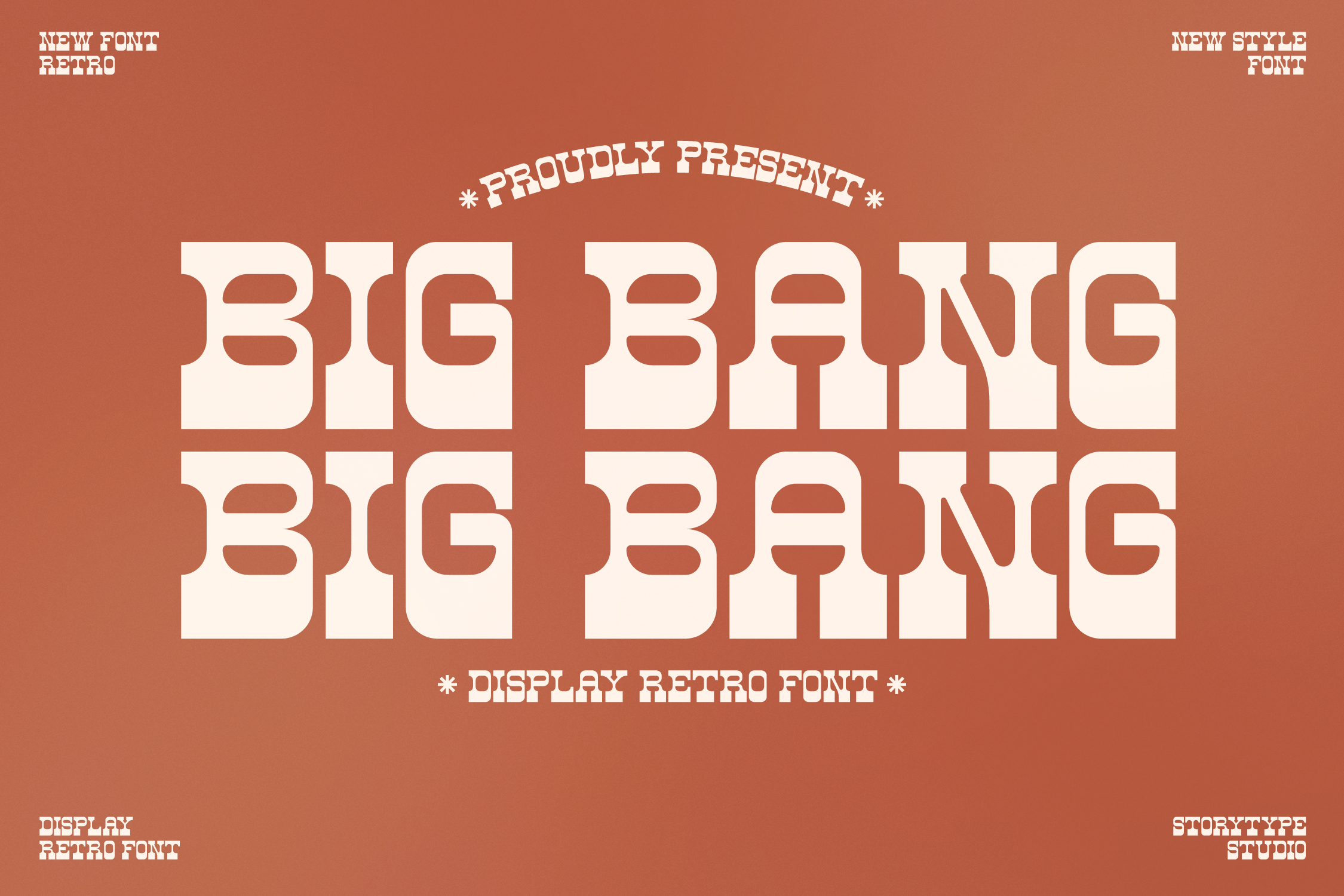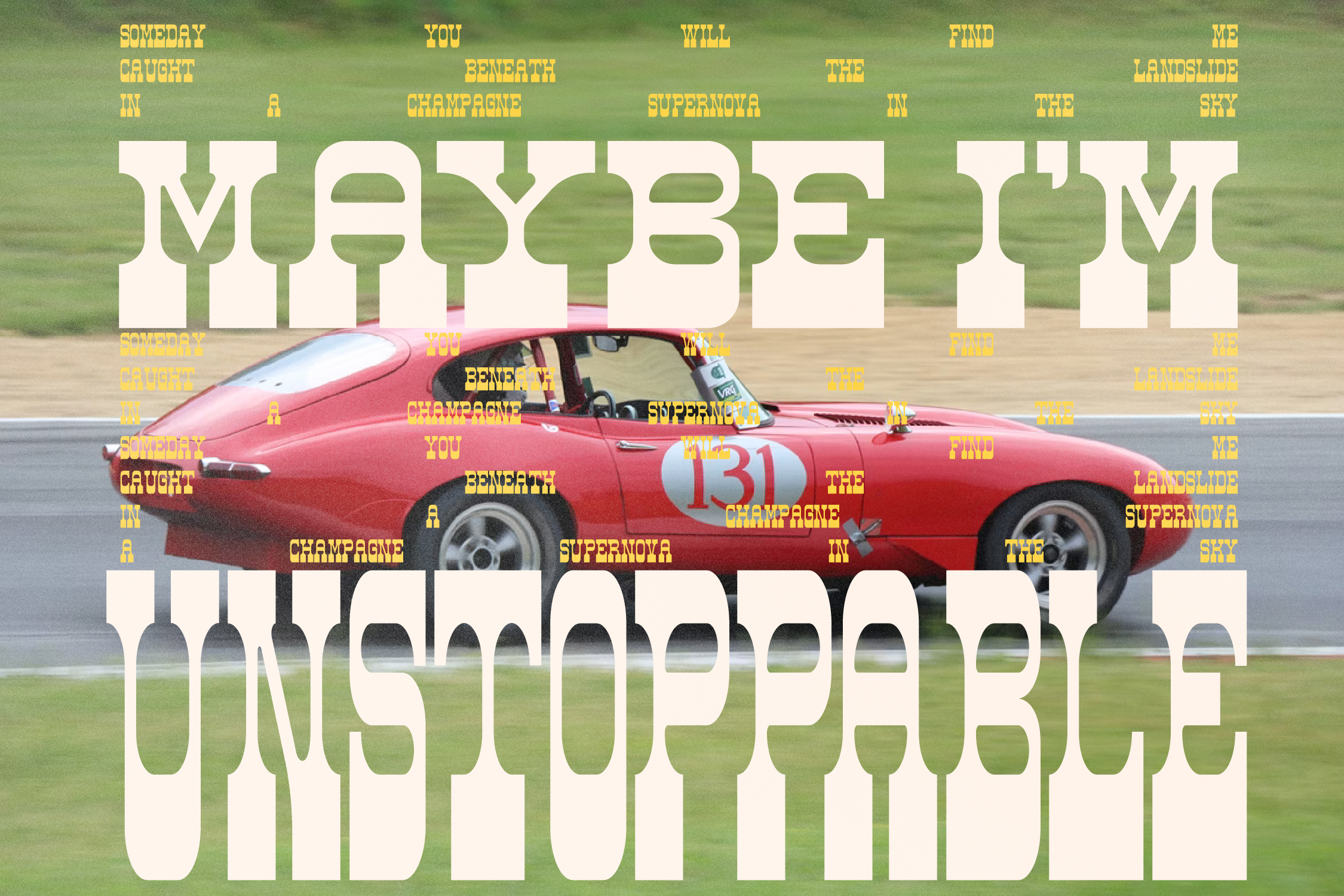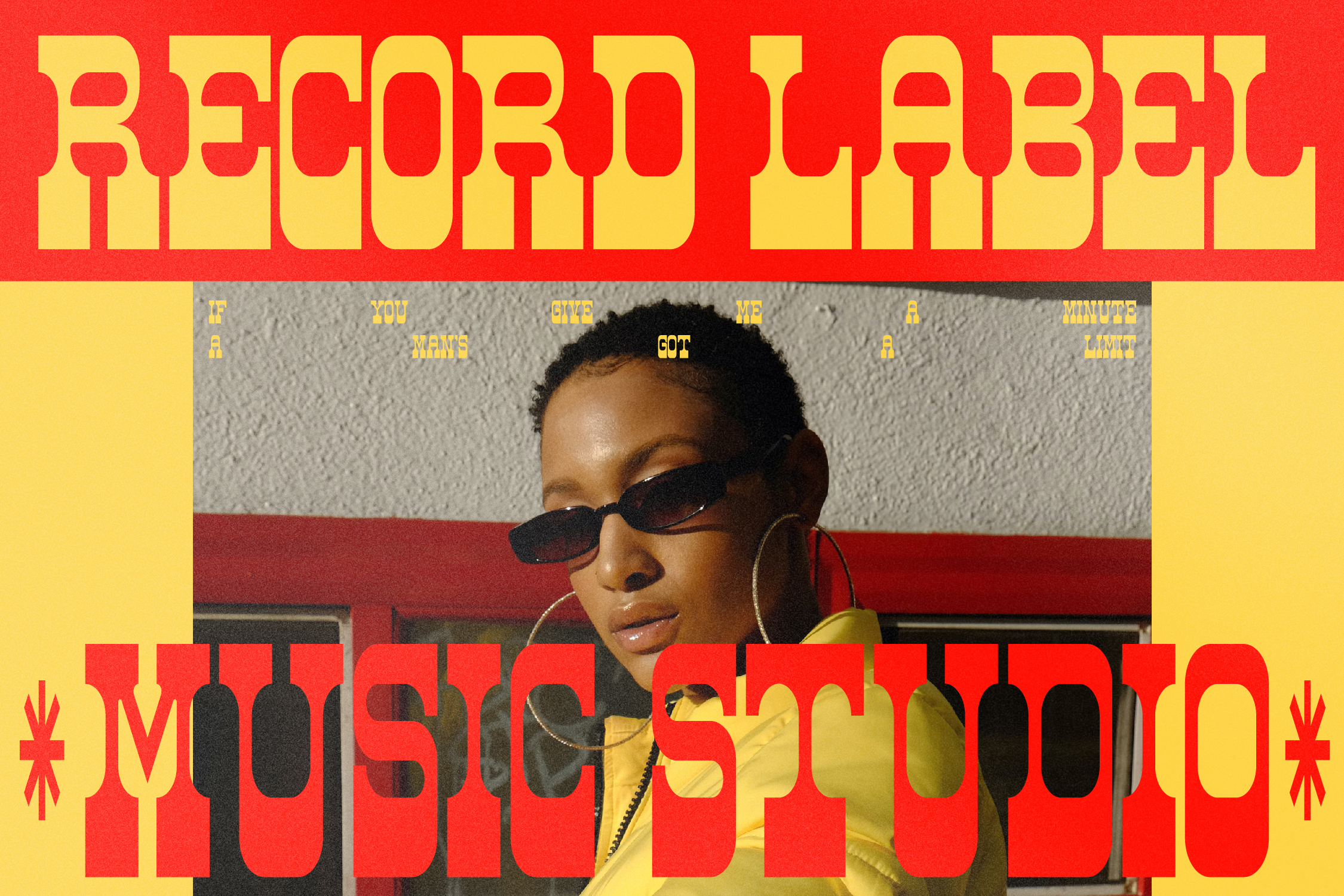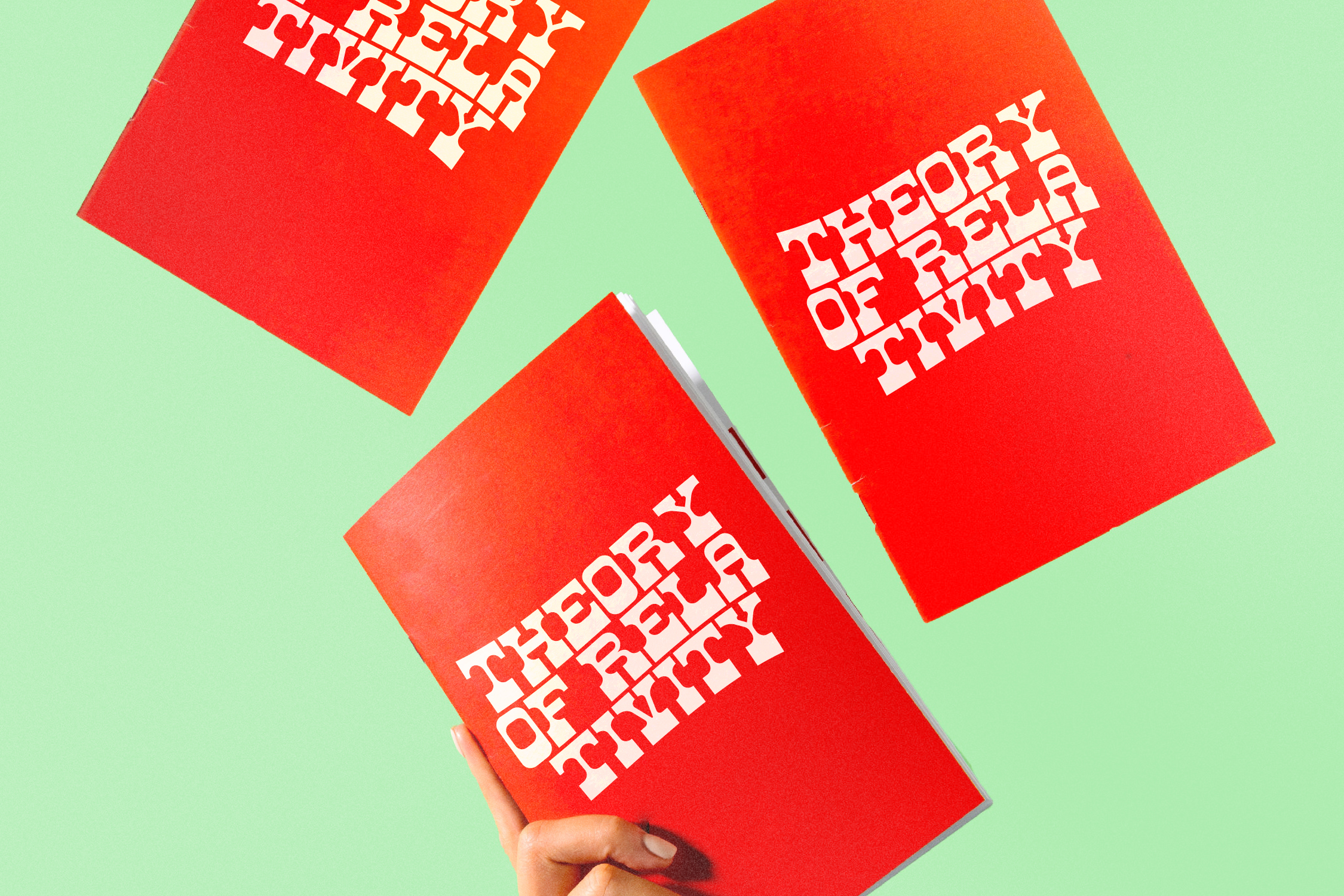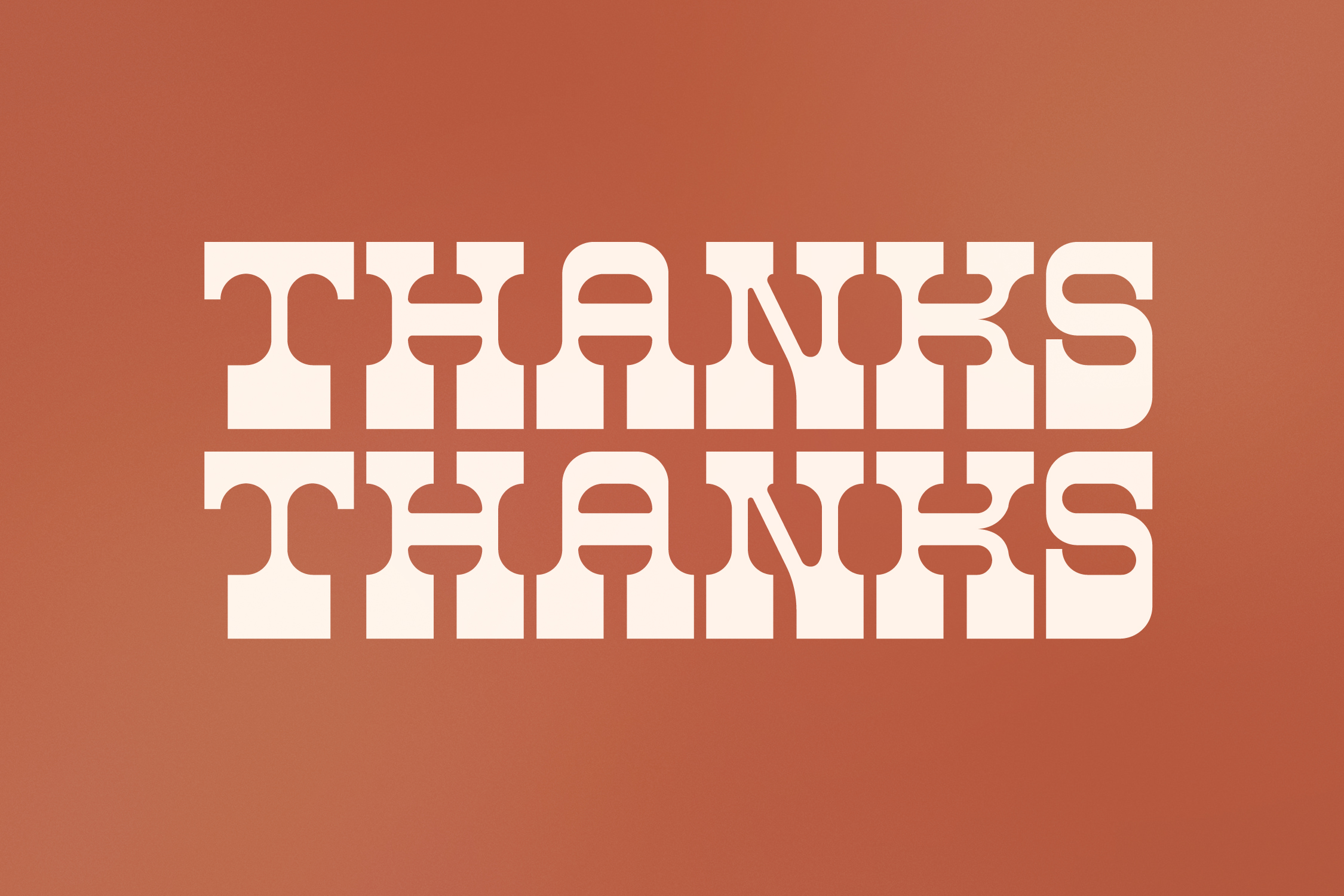
BIG BANG Slab Serif Font
A slab serif modern and classic typeface that has own unique style & modern look. This typeface is perfect for an elegant & luxury logo, book or movie title design, fashion brand, magazine, clothes, lettering, quotes, and so much more.